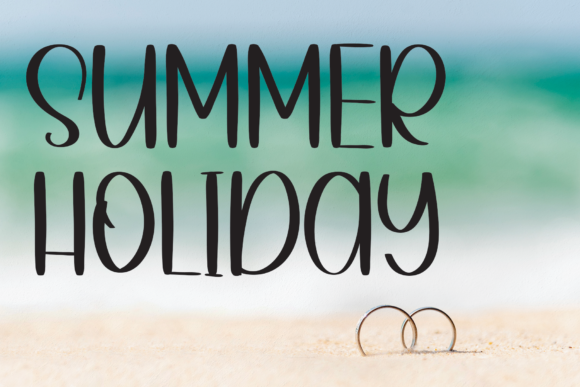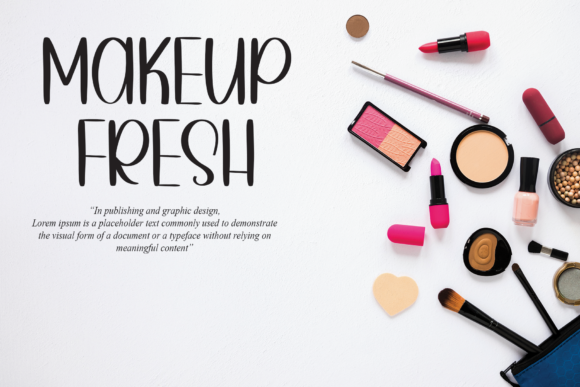
Black Story Font
db-ku.com - Script & Handwritten -- Black Story is a playful and fun handwritten font. It is suitable for any branding project like logos, t-shirt printing, sport designs, and more. It will look outstanding in a wide range of contexts.